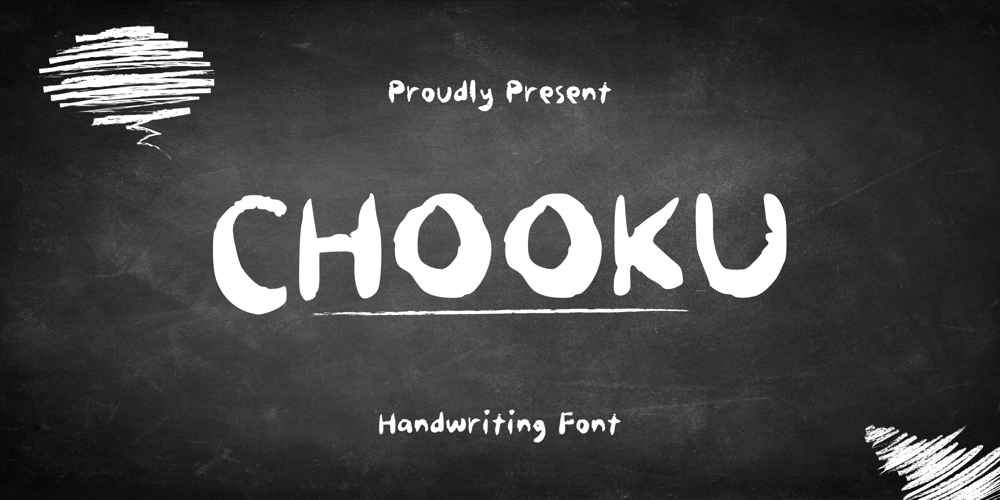
Chooku
Chooku font
Chooku Font Family was designed by published by Sidkia Fonts. Chooku contains 1 styles and family package options. Chooku is a handwritten font with a chalk brush that is very unique and beautiful.Chooku is a classic and vintage font that is similar to chalk, it feels nostalgic about writing on a black chalkboard.